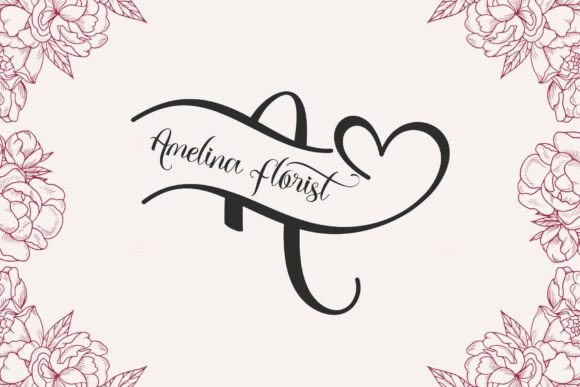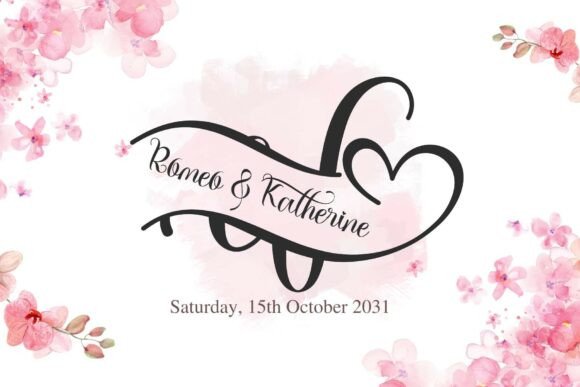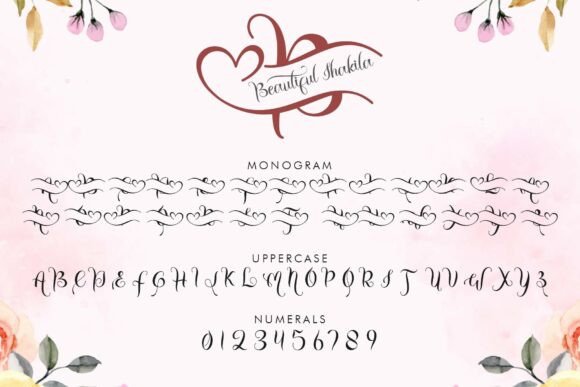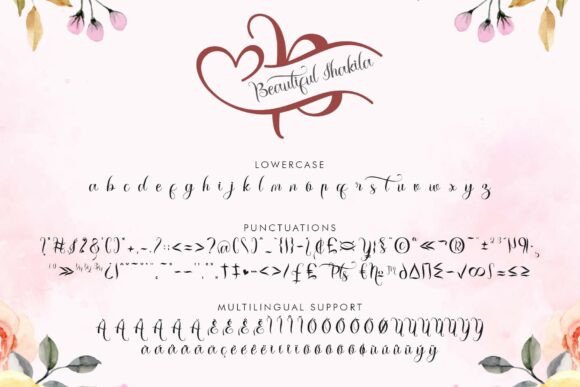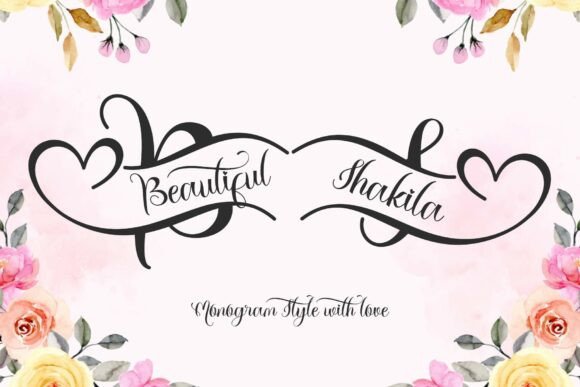
Introducing Beautiful Shakila Monogram Font: Elegance Redefined
Beautiful Shakila is an elegant decorative script font crafted in a refined monogram style, perfect for designs that celebrate romance, sophistication, and timeless beauty. Its graceful swashes, delicate strokes, and flowing lines create a harmonious balance of style and readability, making it ideal for a variety of design projects.
Perfect for Wedding and Luxury Designs
Beautiful Shakila is particularly suited for wedding stationery, luxury branding, personal logos, and upscale invitations. The font’s refined aesthetic and elegant monogram style evoke a sense of sophistication and romance, making it perfect for designers and crafters looking to create beautiful and memorable designs.
Comprehensive Character Set and Monogram Elements
The Beautiful Shakila font includes a complete set of uppercase and lowercase letters, numerals, punctuation, and stunning heart-shaped monogram frames. These monogram elements can be combined effortlessly to create personalized designs for initials, logos, and decorative titles. With Beautiful Shakila, the possibilities for customization are endless.
Multilingual Support and Versatility
Beautiful Shakila also features multilingual support, making it a versatile font suitable for international projects. Whether you’re designing for a global audience or looking to create a unique and personalized design, Beautiful Shakila has got you covered.
Hand-Drawn Details and Ligatures
The font’s smooth curves and detailed ligatures make every letter look hand-drawn and unique. This attention to detail and commitment to quality make Beautiful Shakila a standout font for designers and crafters looking for a high-end aesthetic.
Design Ideas with Beautiful Shakila
Beautiful Shakila is perfect for a variety of design projects, including:
- Wedding invitations and save-the-date cards
- Feminine logos and branding
- Boutique packaging and product design
- Elegant social media posts and graphics
- Upscale invitations and event stationery
Why Choose Beautiful Shakila?
Beautiful Shakila offers a unique combination of elegance, sophistication, and versatility. With its comprehensive character set, monogram elements, and multilingual support, this font is perfect for designers and crafters looking to create beautiful and memorable designs.
Tips for Using Beautiful Shakila
To get the most out of Beautiful Shakila, try the following tips:
- Experiment with different monogram combinations to create unique and personalized designs
- Use Beautiful Shakila in combination with other fonts to create a striking contrast
- Take advantage of the font’s multilingual support to create designs for international projects
- Use the font’s elegant swashes and ligatures to add a touch of sophistication to your designs
Beautiful Shakila is a stunning monogram font that offers a unique combination of elegance, sophistication, and versatility. With its comprehensive character set, monogram elements, and multilingual support, this font is perfect for designers and crafters looking to create beautiful and memorable designs. Whether you’re working on a wedding invitation, luxury branding project, or personal logo, Beautiful Shakila is sure to impress.